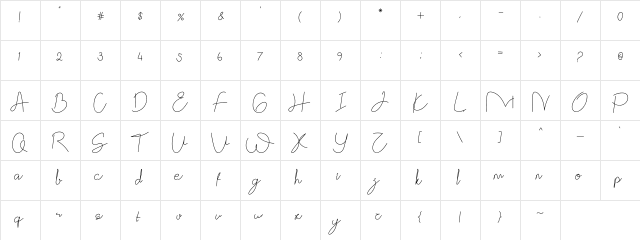
Gittelya Regular
Design Context for Gittelya Typeface
Gittelya is a composed and adaptable typeface that performs quietly and consistently across a wide range of design contexts.